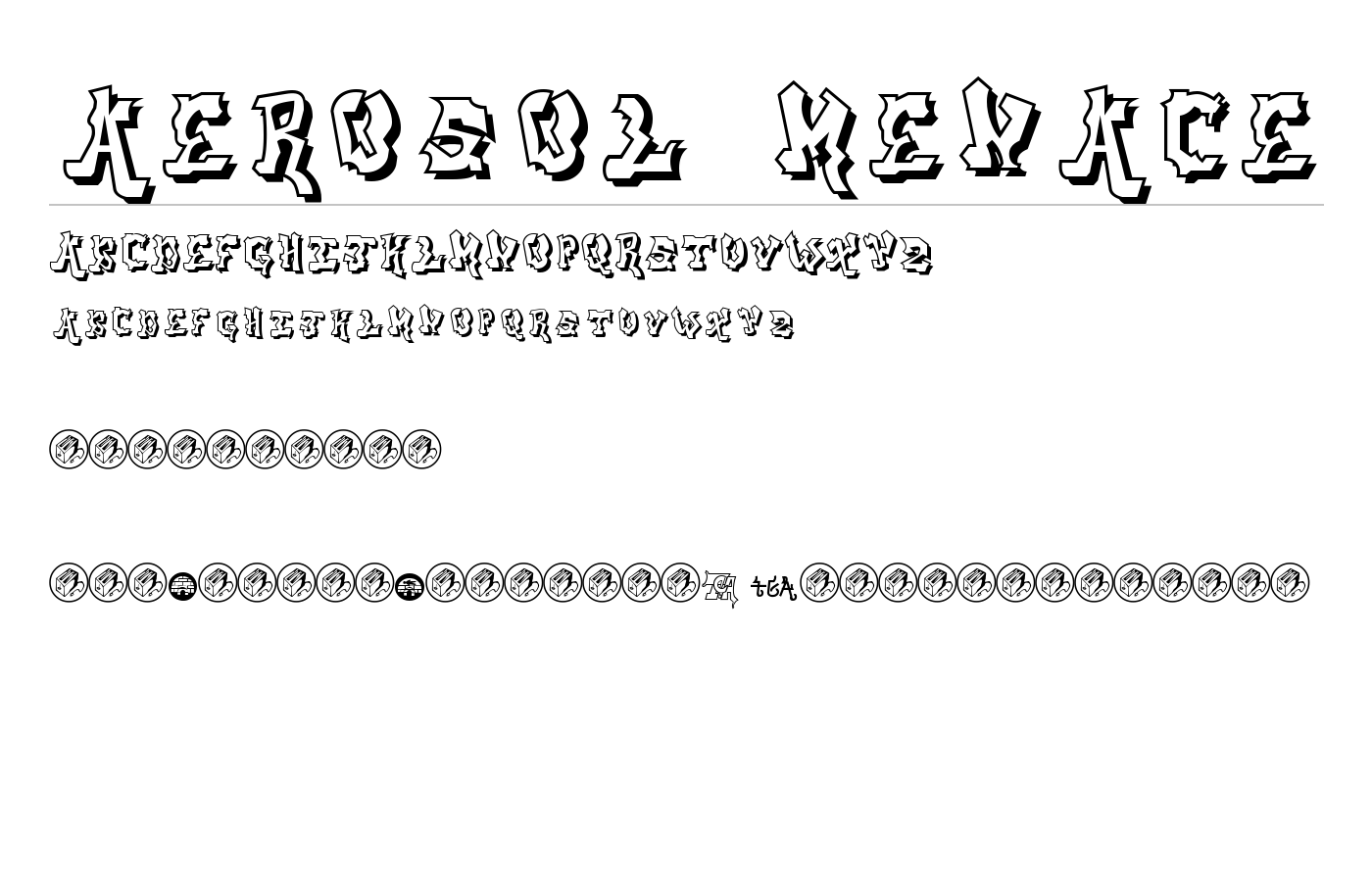
Aerosol Menace is a bold, decorative serif font with a distinct jagged, graffiti-inspired style that brings an urban, edgy vibe to any design. Its sharp angles and heavy contrast give it a strong, rebellious personality, making it ideal for streetwear brands, posters, and edgy headlines that demand attention. This font works best in large sizes where its intricate details and dynamic shapes can shine, adding a sense of raw energy and attitude.